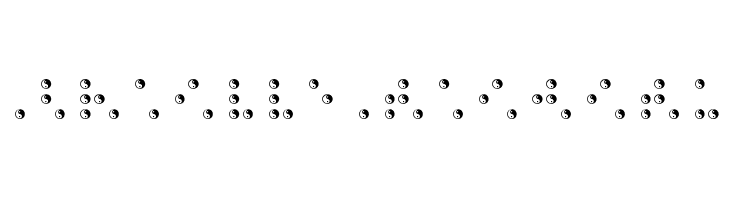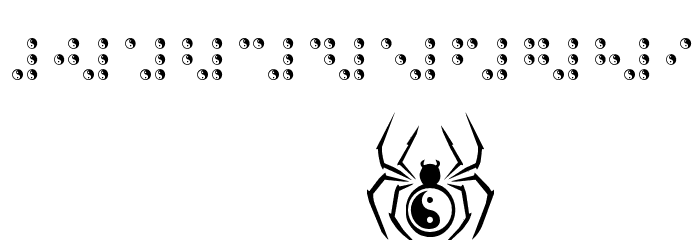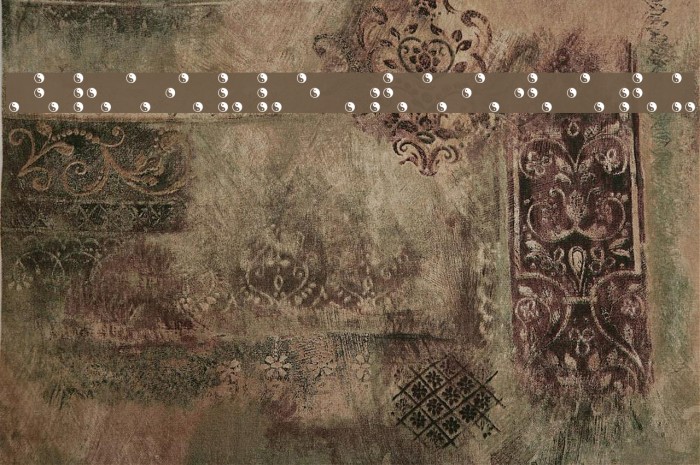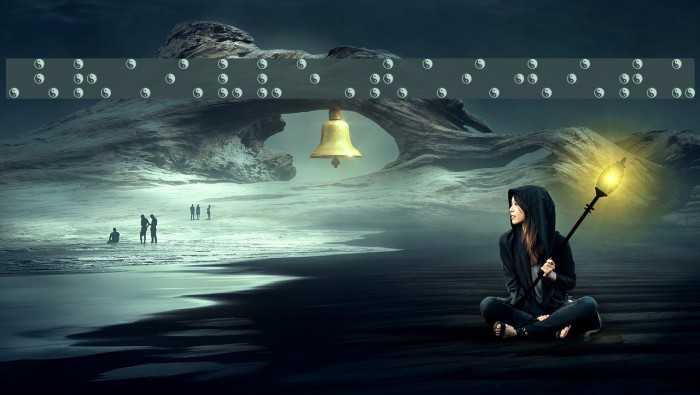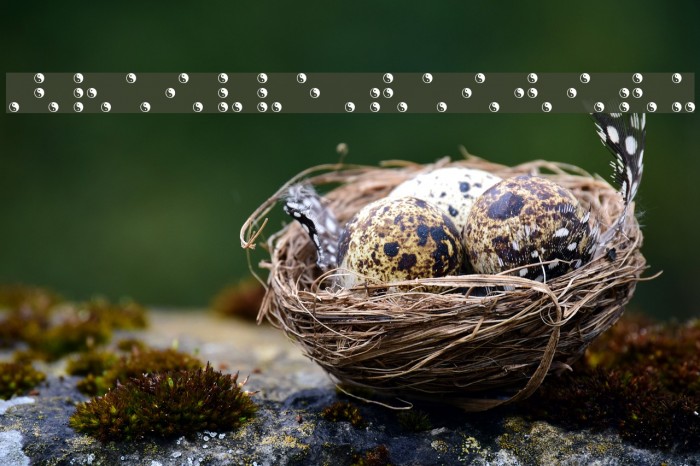
BRAILLE TAIJITU Font
BRAILLE TAIJITU Description
This unique design combines the tactile elements of Braille with the symbolic representation of the Taijitu, or yin-yang symbol. Each character is formed by integrating the yin-yang symbol into the traditional Braille dot pattern, creating a visually striking and conceptually rich typeface. The font maintains the structure of Braille, allowing for a tactile reading experience while simultaneously offering a visual representation that is both artistic and meaningful. This duality reflects the balance and harmony symbolized by the yin-yang, making it not only a functional typeface but also a piece of art. The use of the yin-yang symbol adds a layer of depth, inviting contemplation on the interconnectedness of opposites.
A Braille-inspired font featuring yin-yang symbols for a harmonious visual and tactile experience from Images & Symbols fonts.
- Font: BRAILLE TAIJITU
by spideraysfonts - Weight: Regular
- Proposed Projects: Ideal for projects that emphasize balance and harmony, such as wellness branding, educational materials on duality, or artistic installations.
- Use Case: Artistic projects, educational materials, thematic branding.